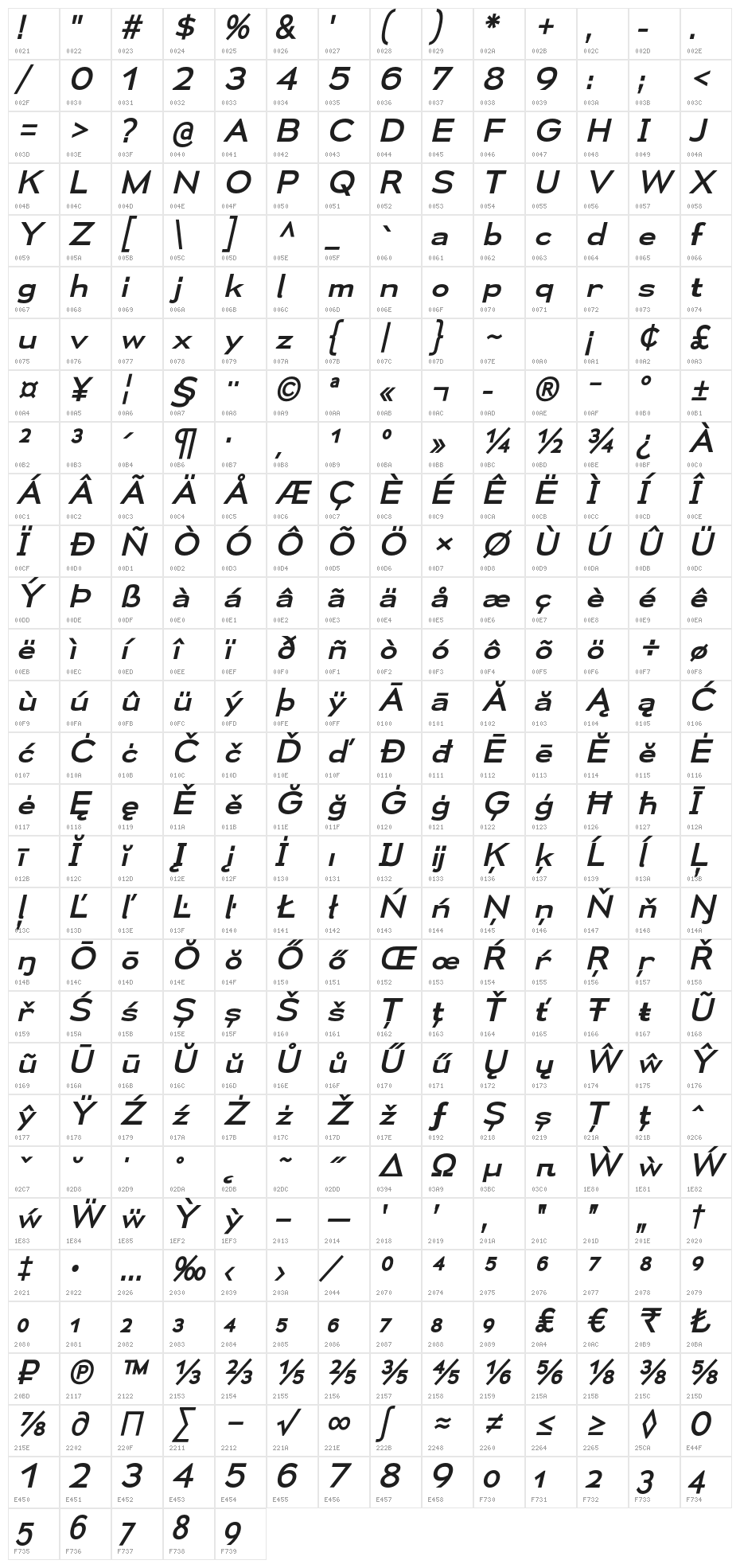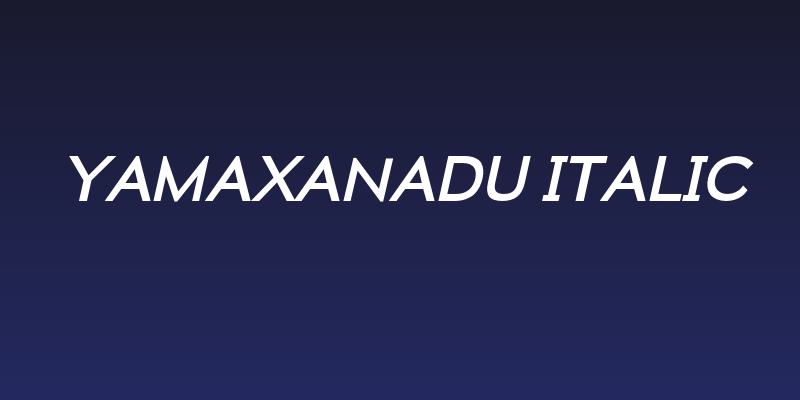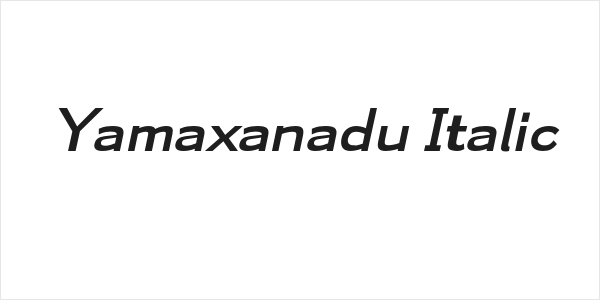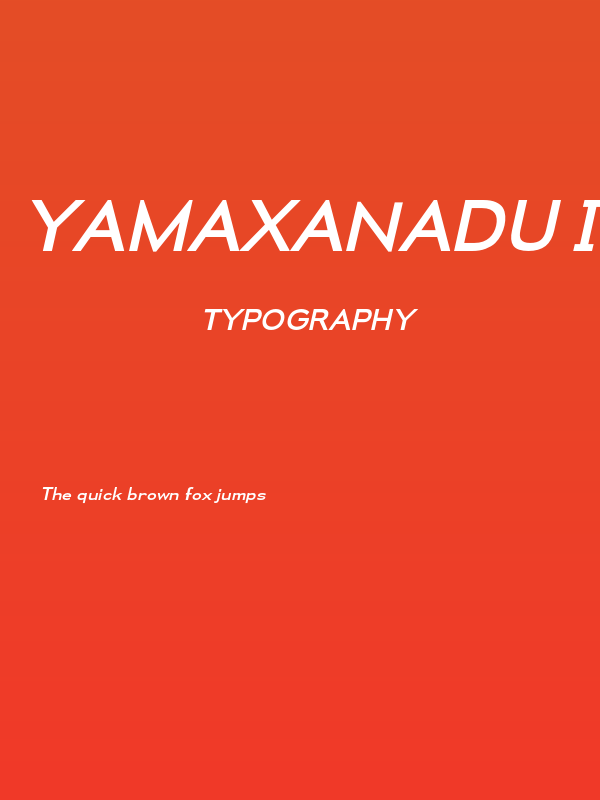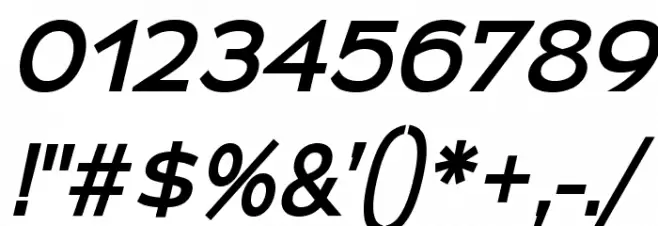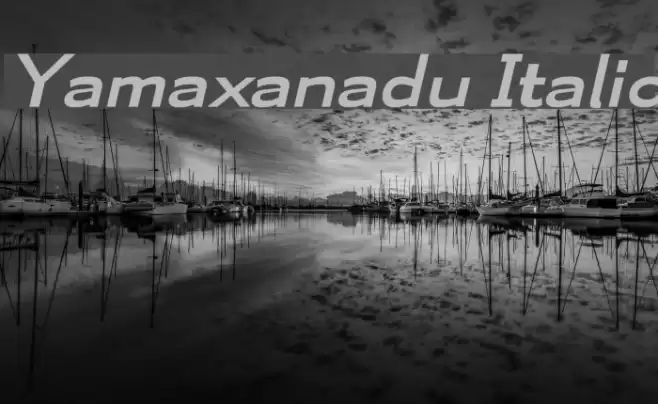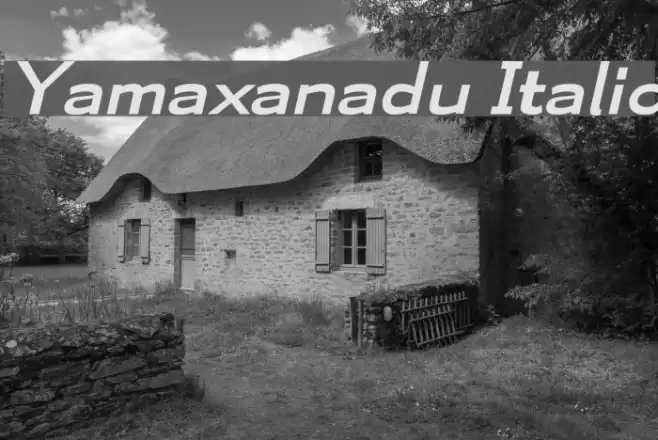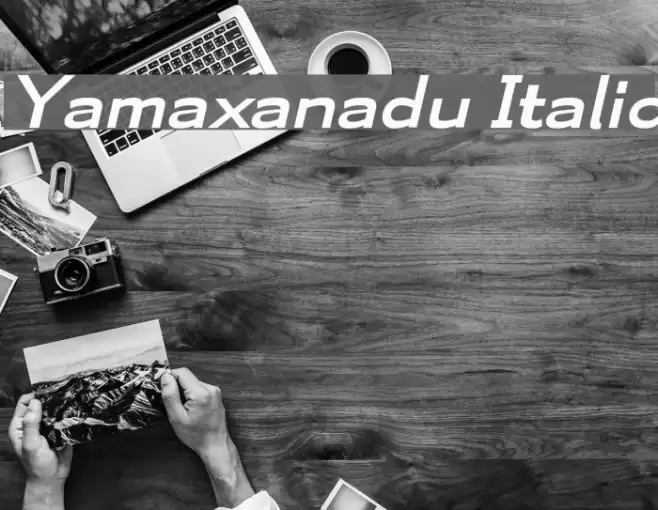
Yamaxanadu Italic Font
Yamaxanadu Italic Description
This font features a sleek, italicized style with a modern and dynamic appearance. The characters are slightly slanted, giving a sense of motion and elegance. The strokes are consistent in weight, providing a uniform look across both uppercase and lowercase letters. The numerals are clear and easy to read, maintaining the same italicized style. Special characters are well-defined, complementing the overall aesthetic. The font's design is suitable for creating a contemporary and professional look.
| Use Case | Headlines, Logos, Branding |
| Proposed Projects | Ideal for branding, advertising, and editorial design where a modern and professional appearance is desired. |
| Author | Fonts by Måns Grebäck |